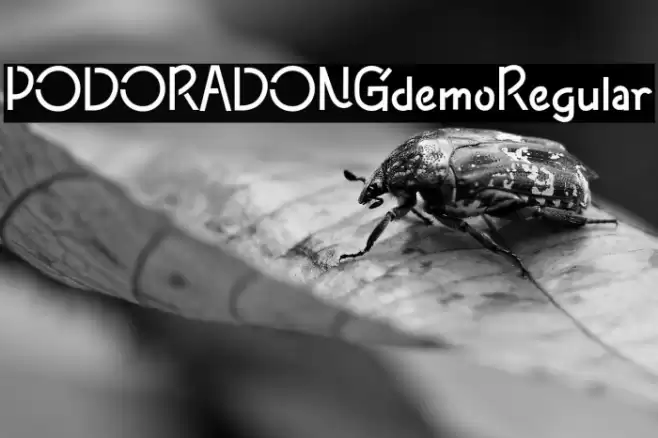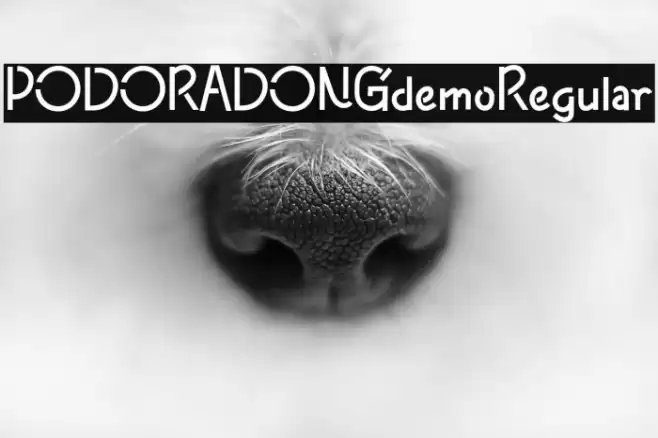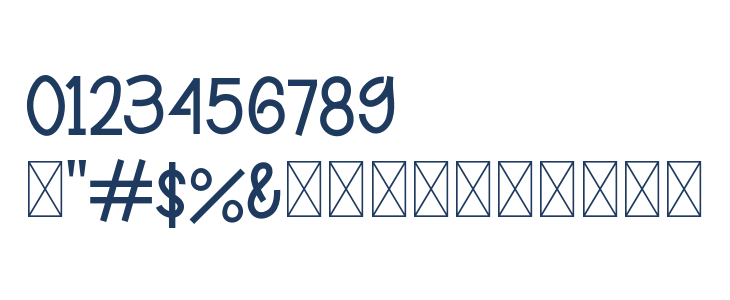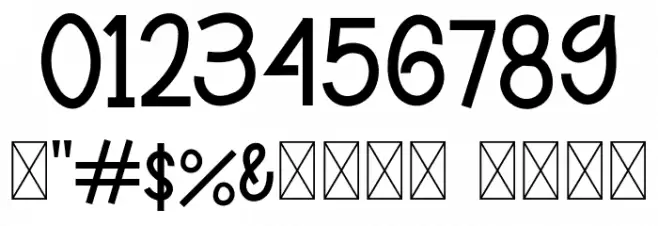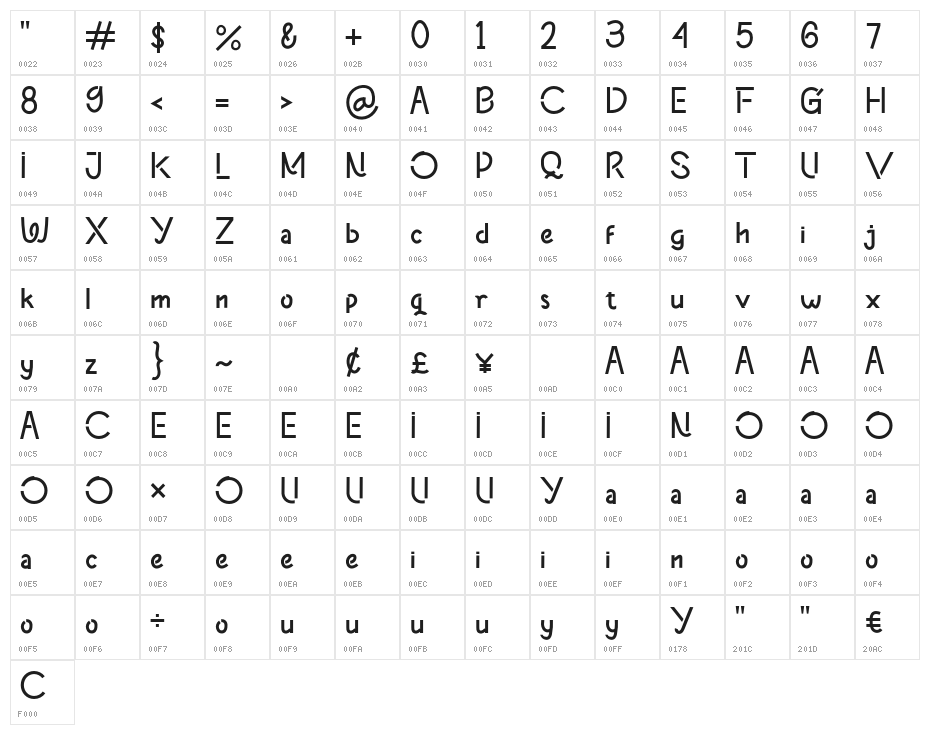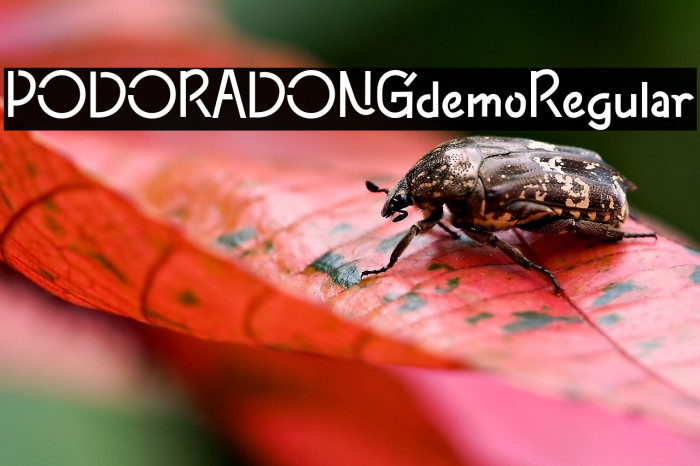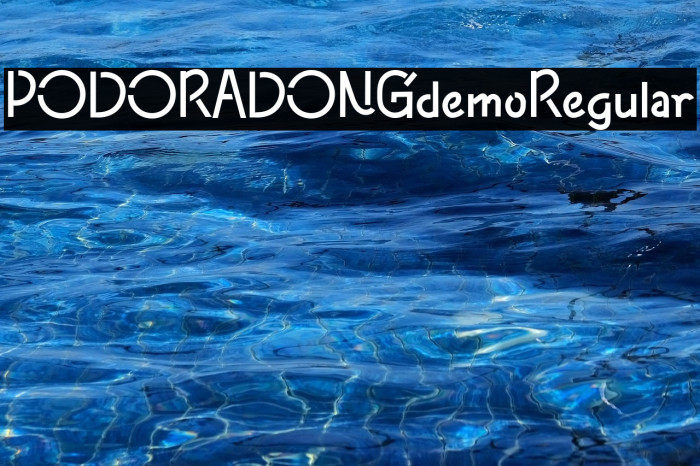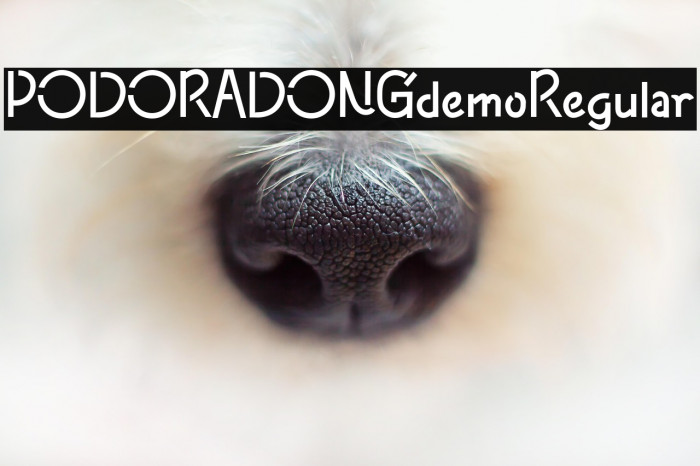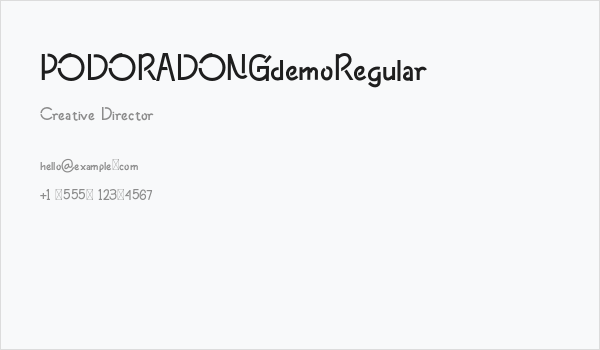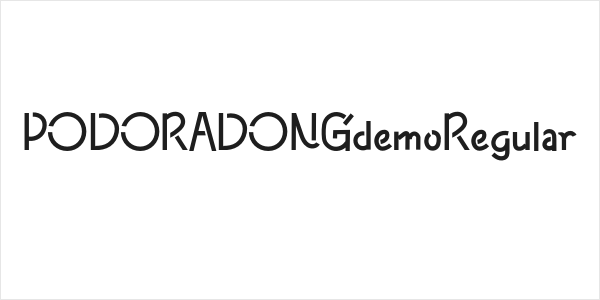
PODORADONGdemoRegular Font
PODORADONGdemoRegular Description
This font features a unique blend of geometric and playful elements, with a distinct modern flair. The uppercase letters are characterized by sharp angles and clean lines, while the lowercase letters maintain a more rounded and approachable appearance. The numerals are bold and easily legible, making them suitable for various applications. Special characters are included, adding versatility to the font. The overall design is both eye-catching and functional, making it ideal for creative projects that require a touch of modernity.
A modern, geometric font with playful elements and clean lines from Uncategorized fonts.
- Proposed Projects: Ideal for branding, posters, headlines, and creative digital media projects.